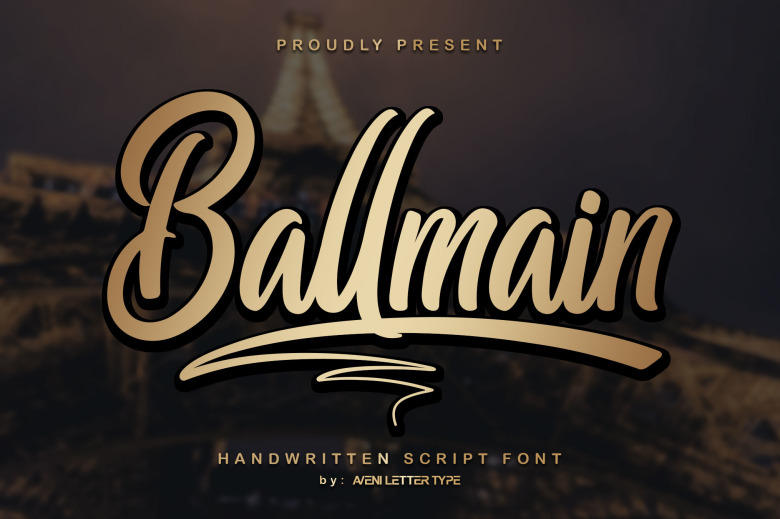
Ballmain Font
Ballmain is great for logos, branding, cosmetic tube, design flyer, business card, invitations, stationery, wedding designs, social media posts, and much more! Because Ballmain has Masculine nature. It’s a classy, elegant, and modern script font with a natural flow and clean line.
Ballmain Modern Script Font